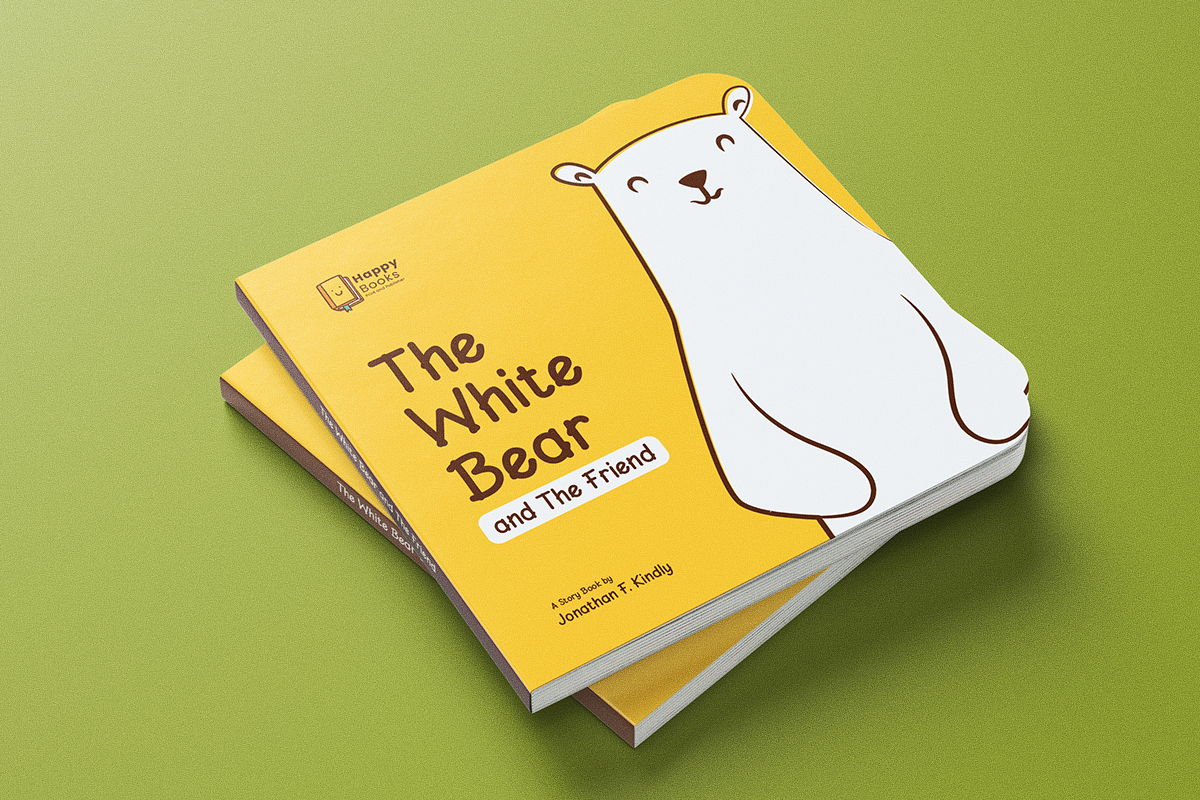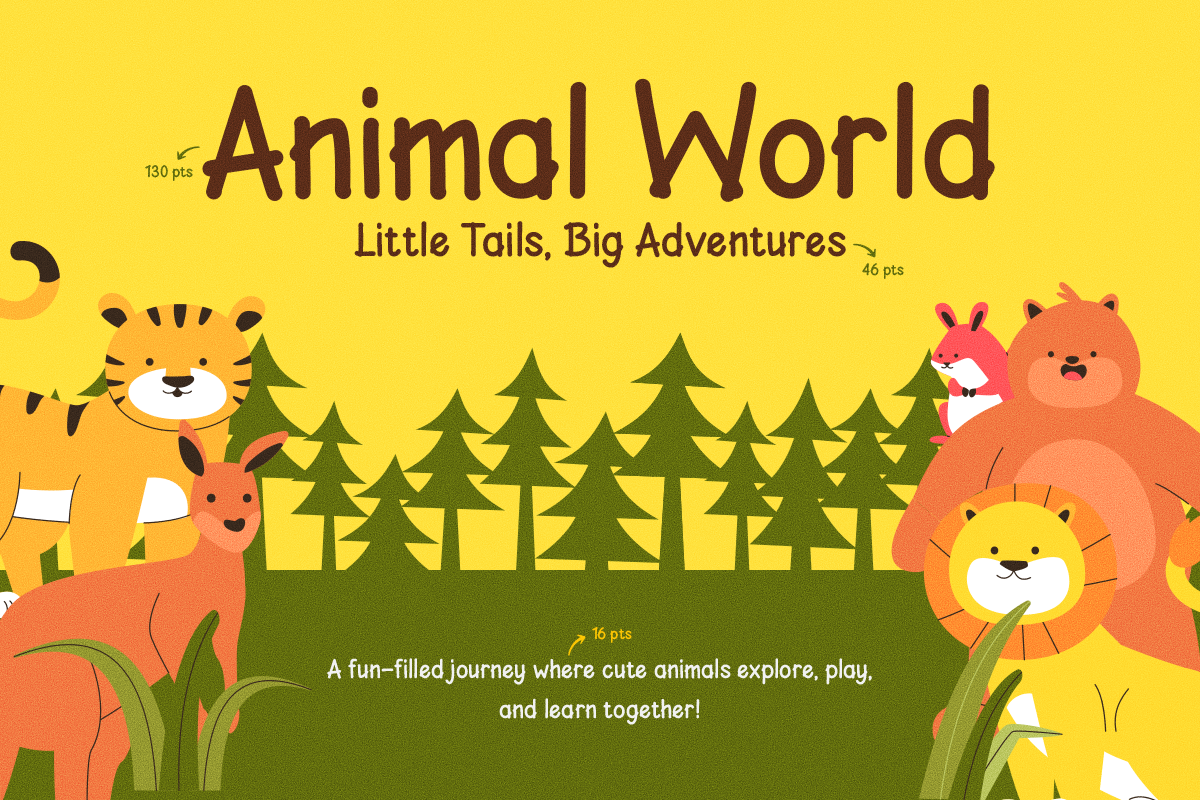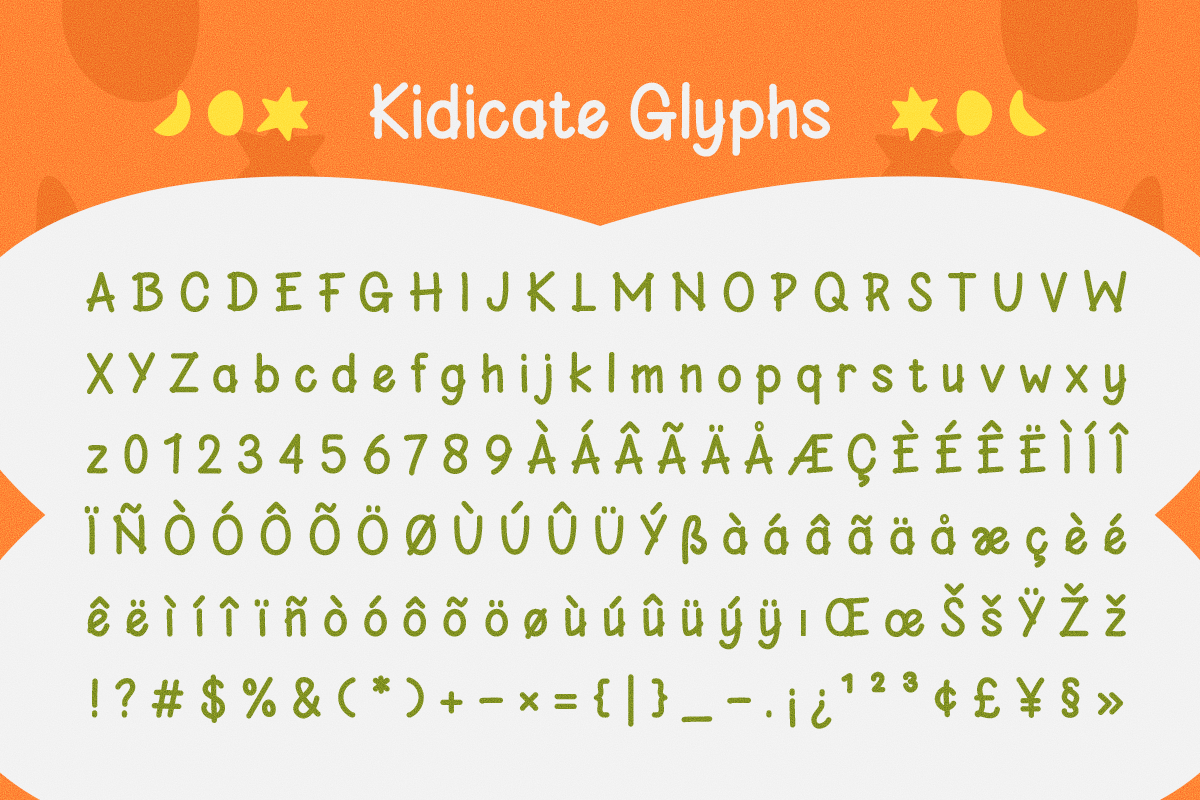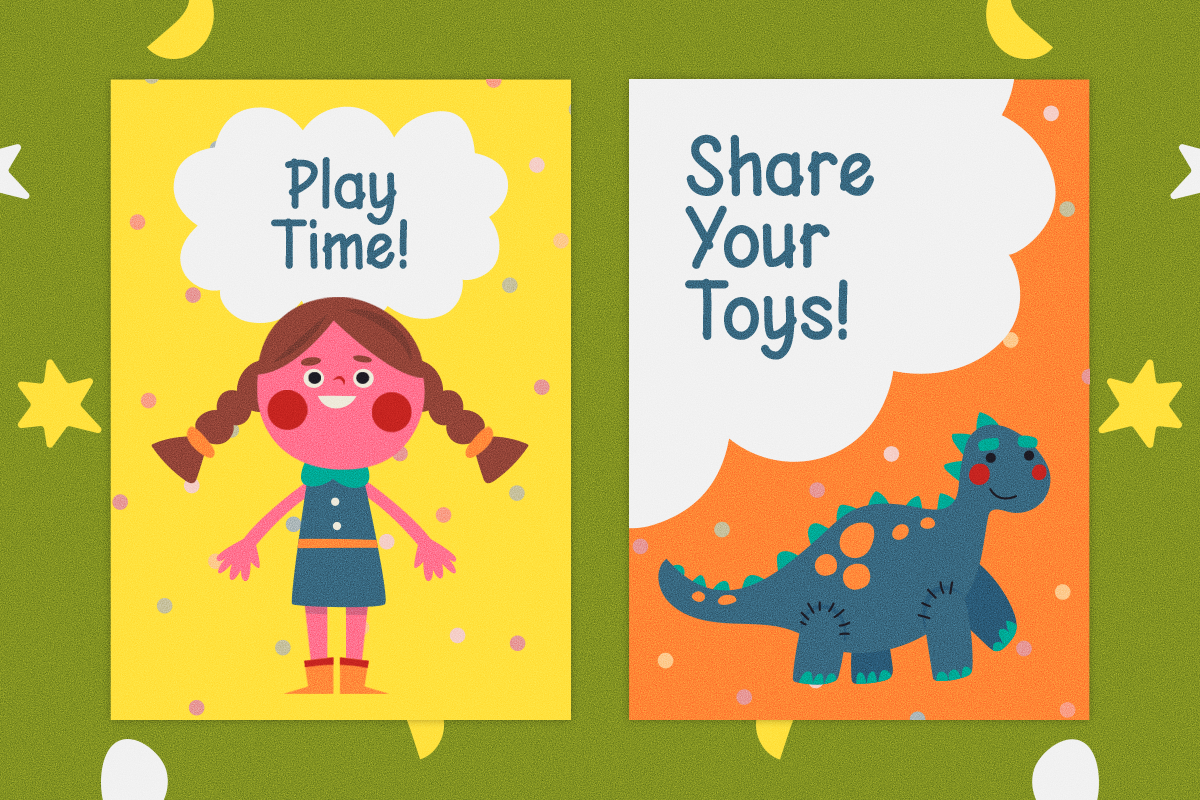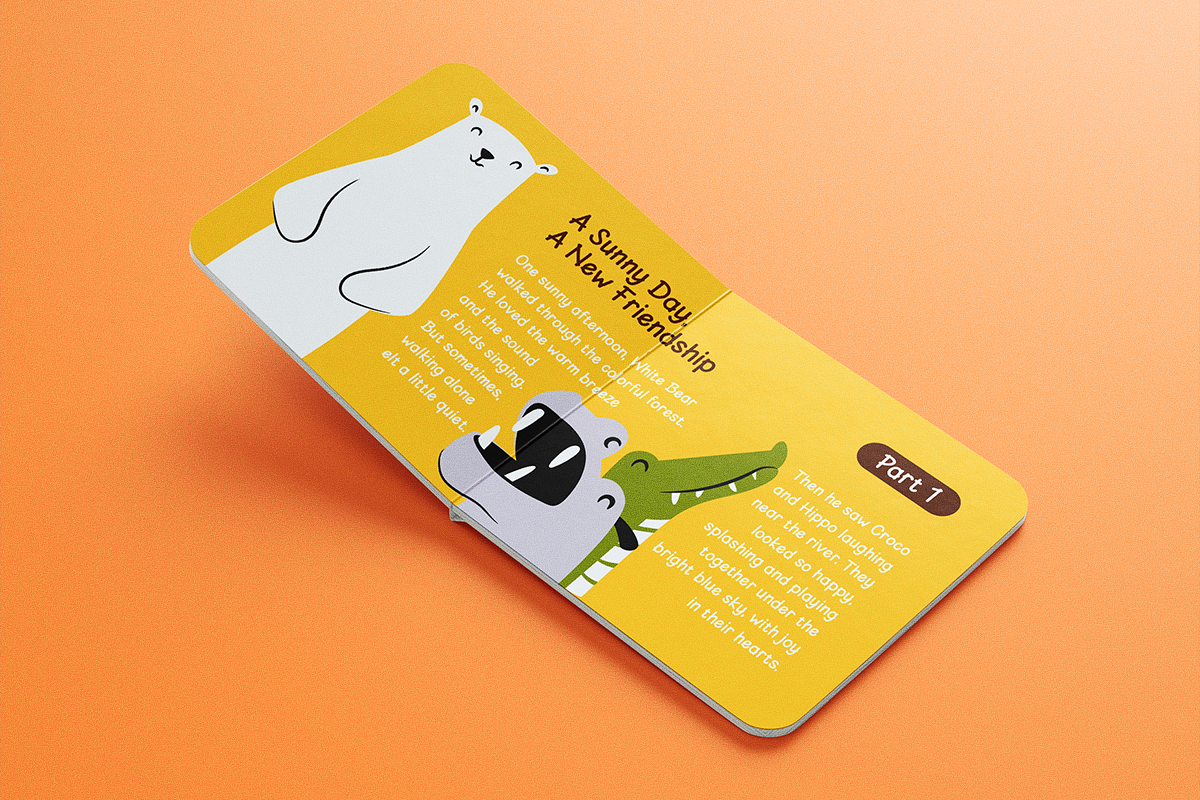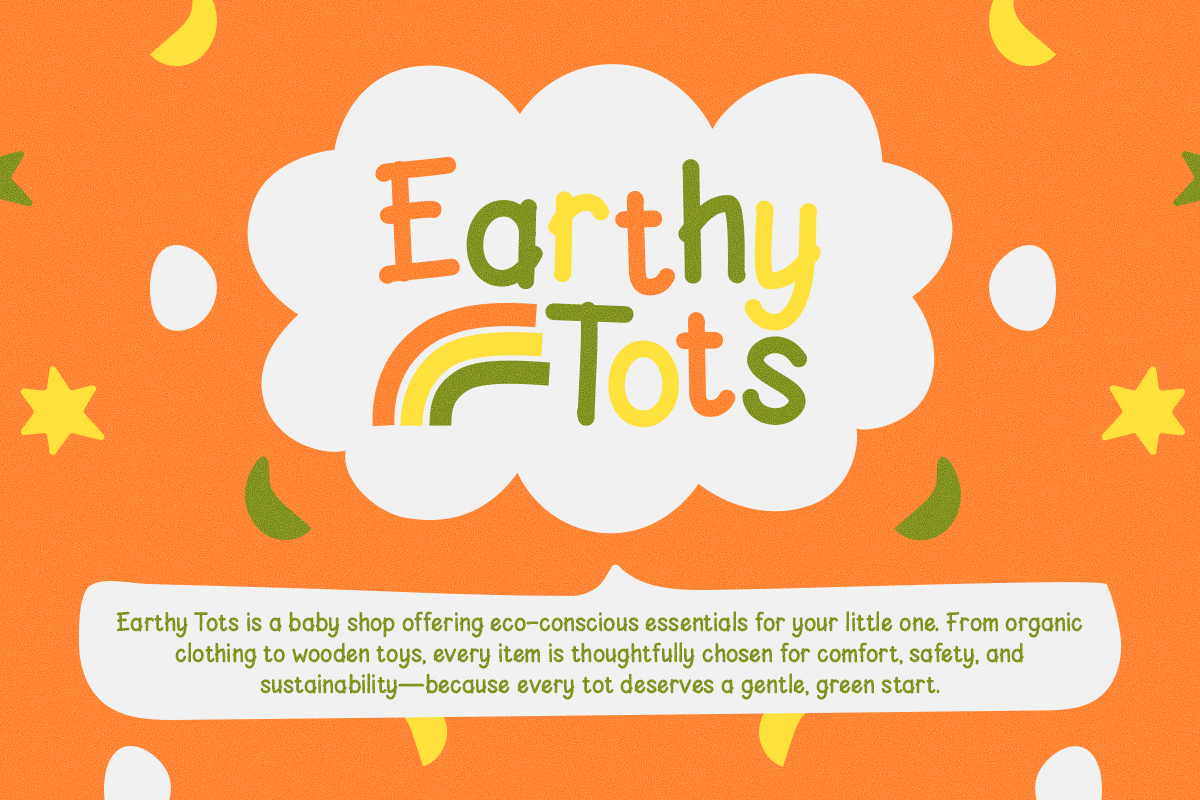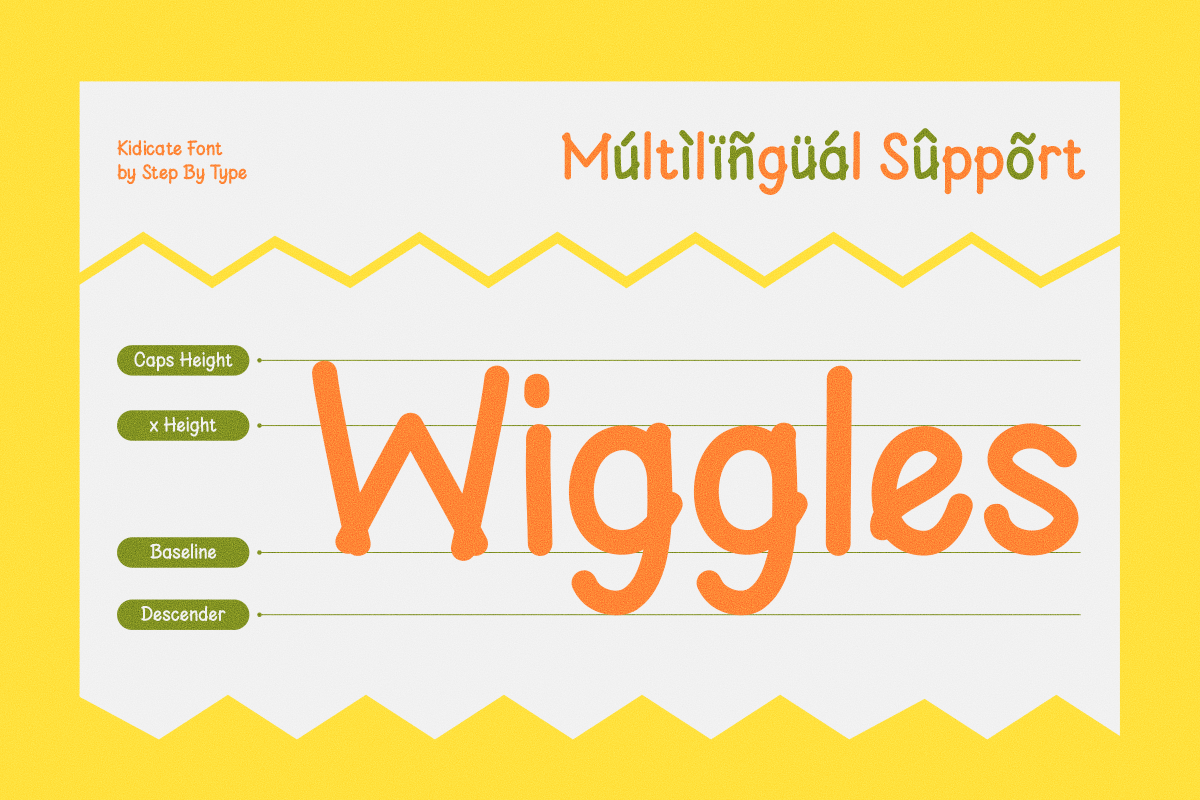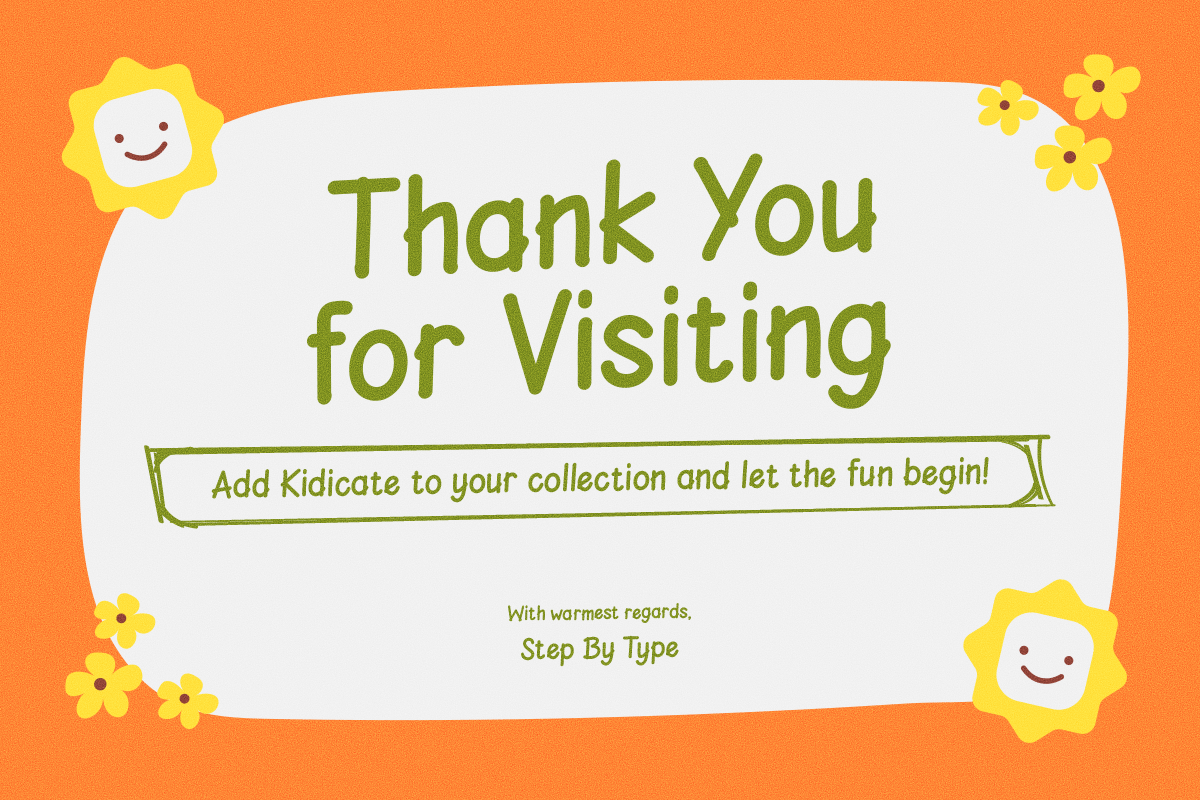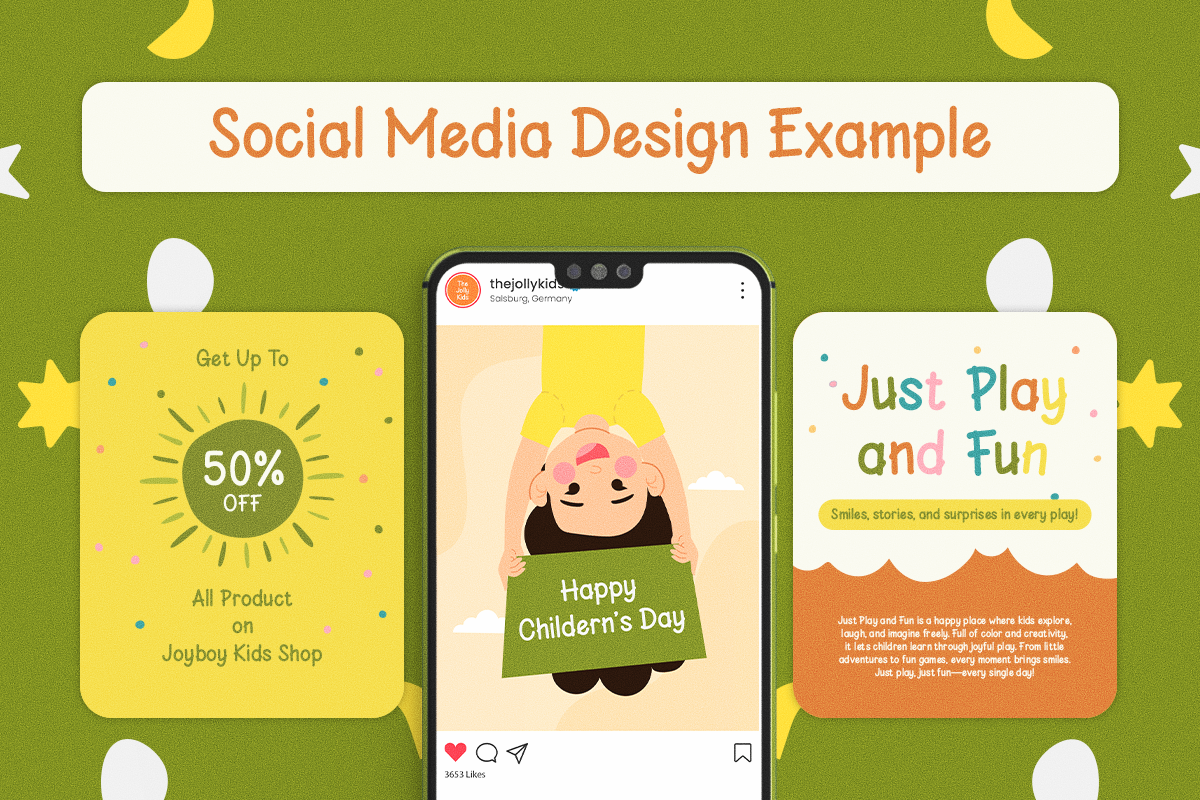
Kidicate - Playful handwriting
Kidicate is a cheerful kids' handwritten font that brings warmth, fun, and personality to any playful project. With its rounded, friendly letterforms and natural hand-drawn bounce, Kidicate feels like a child's own handwriting — perfect for storybooks, children's branding, and anything made to make kids smile.
Easy to read and full of charm, Kidicate works beautifully across both headlines and body text, so it's just as at home on a book cover as it is inside the story. Use it for children's books, nursery and kids' brands, educational materials, packaging, birthday and party design, and cheerful social media.
Great for: children's books and storybooks, kids' branding and logos, nursery and preschool design, educational materials, playful packaging, greeting cards, birthday and party invitations, posters, and social media.